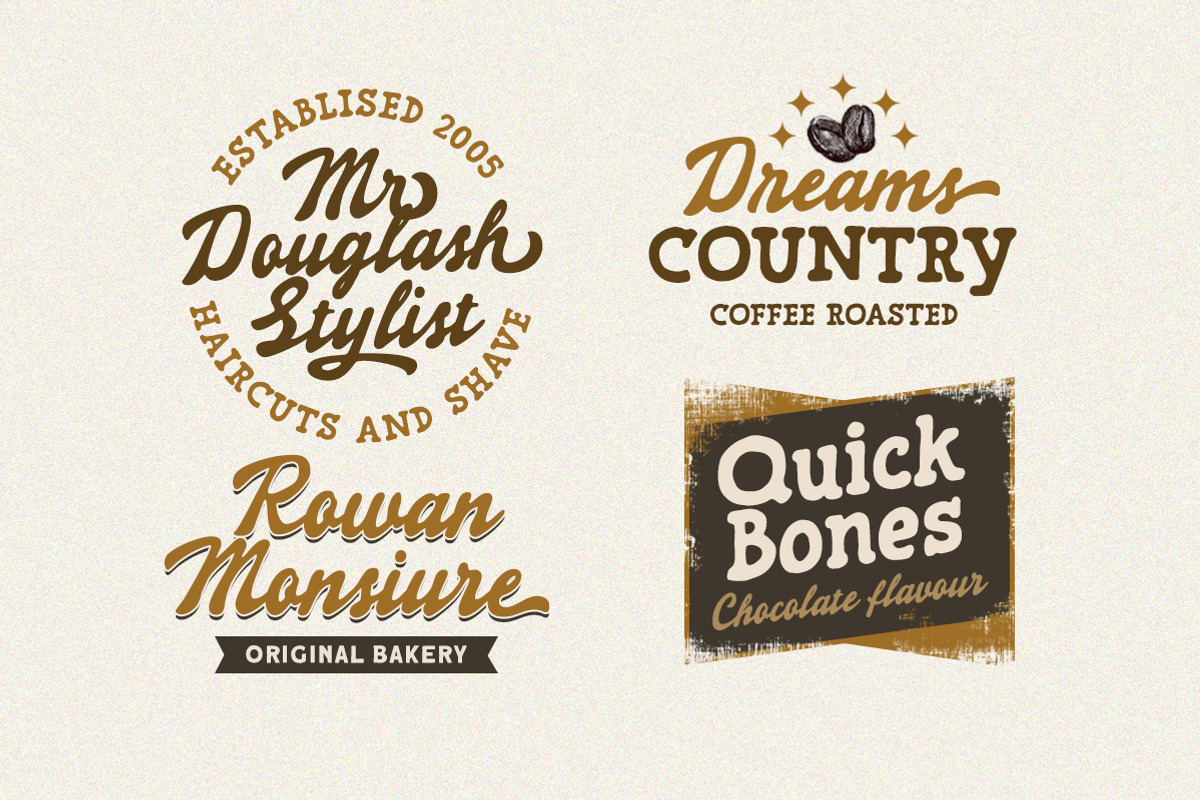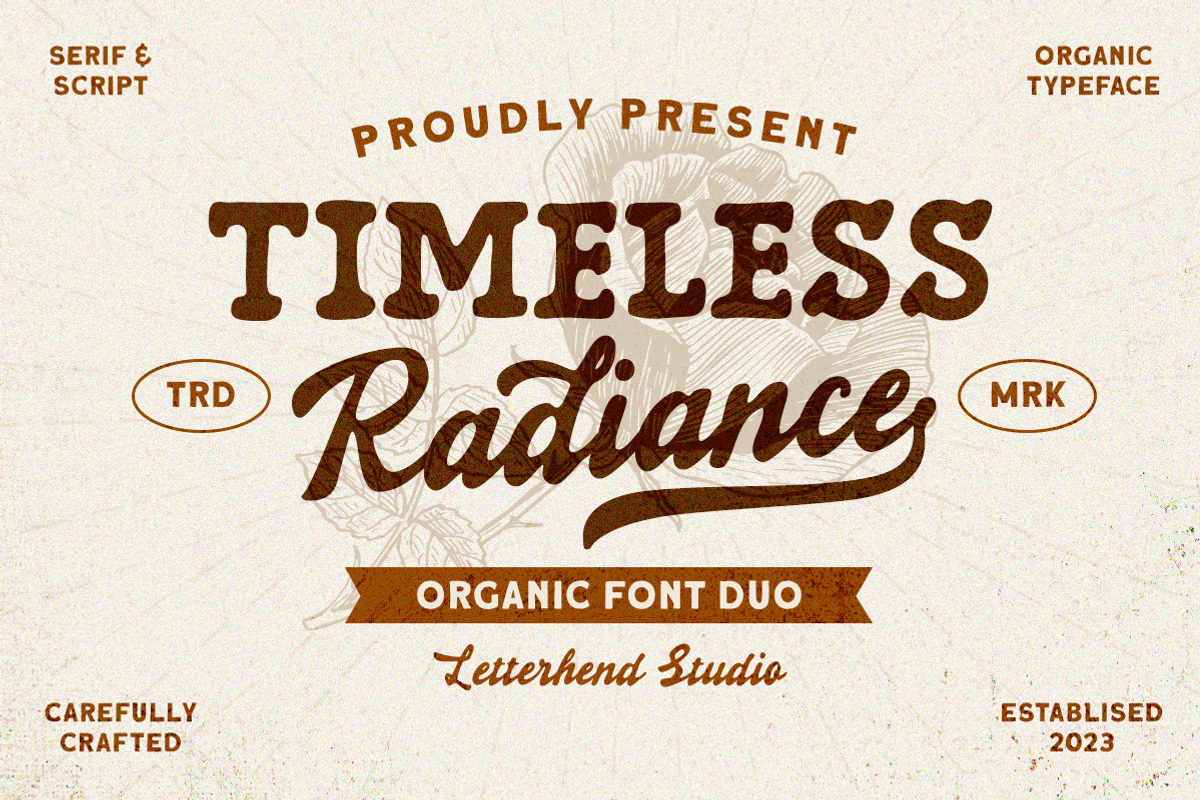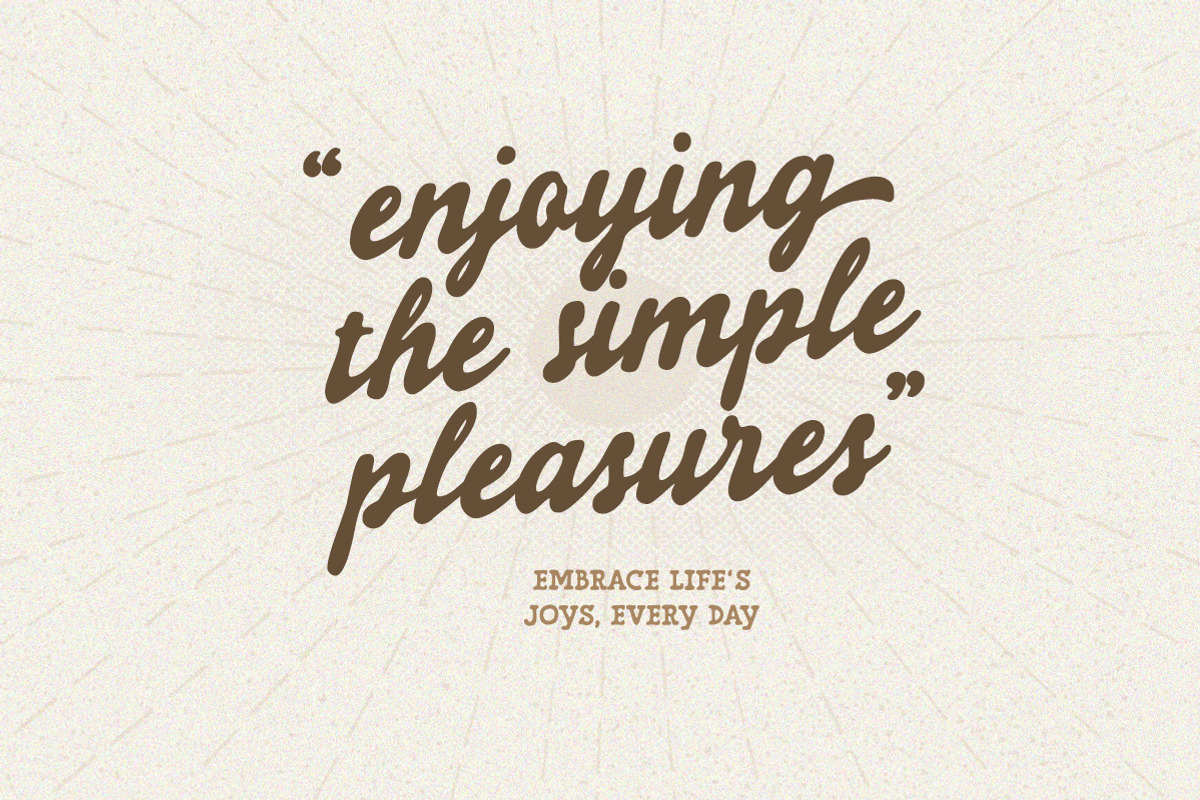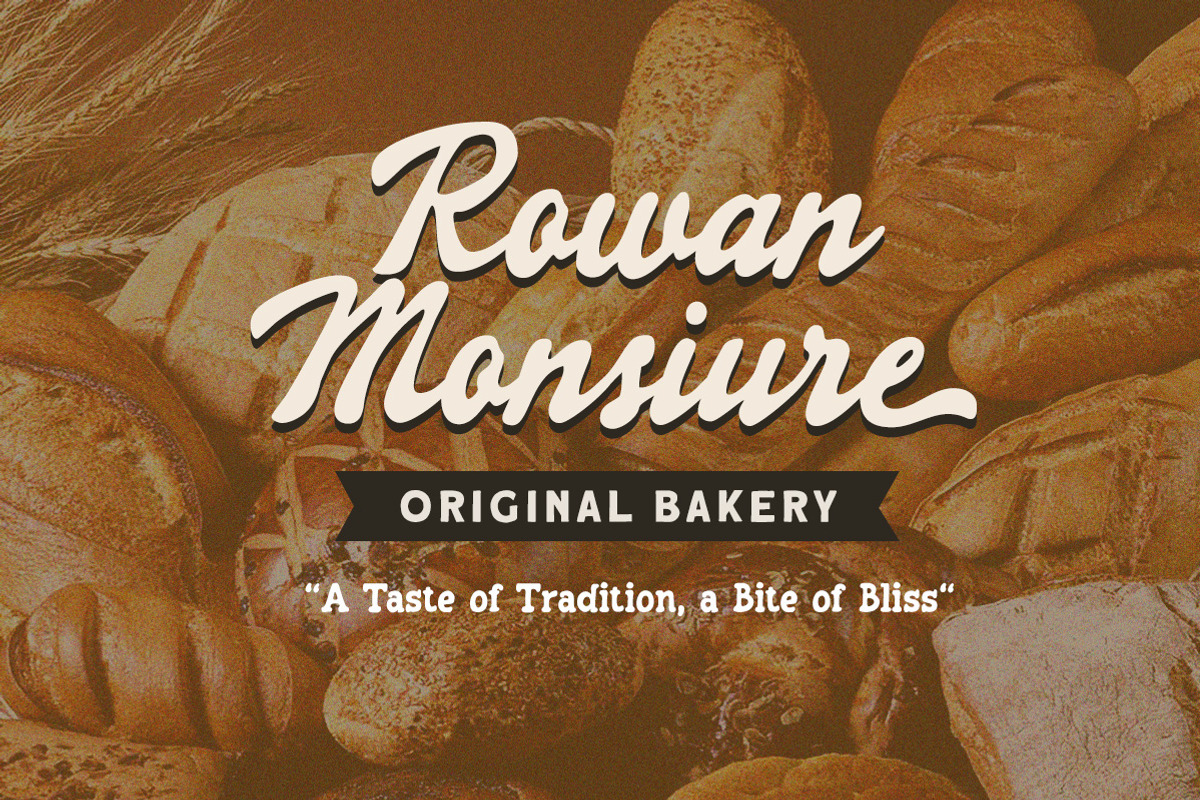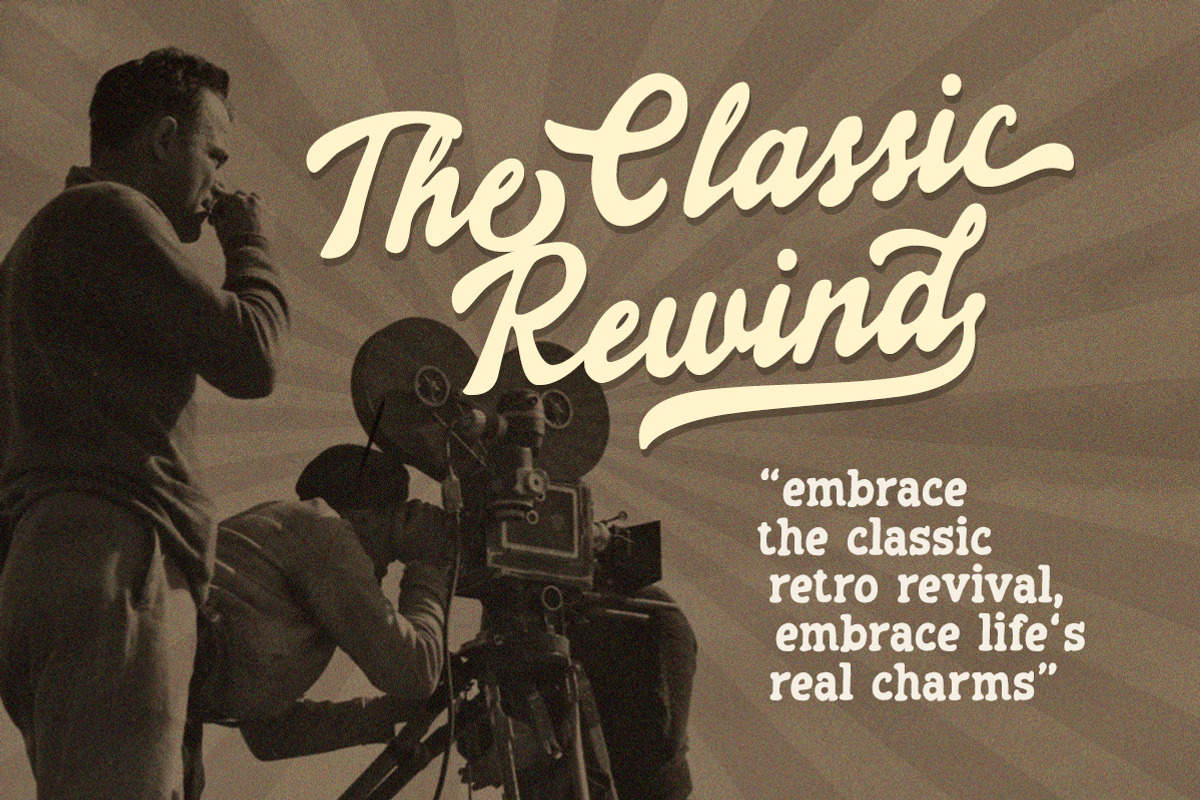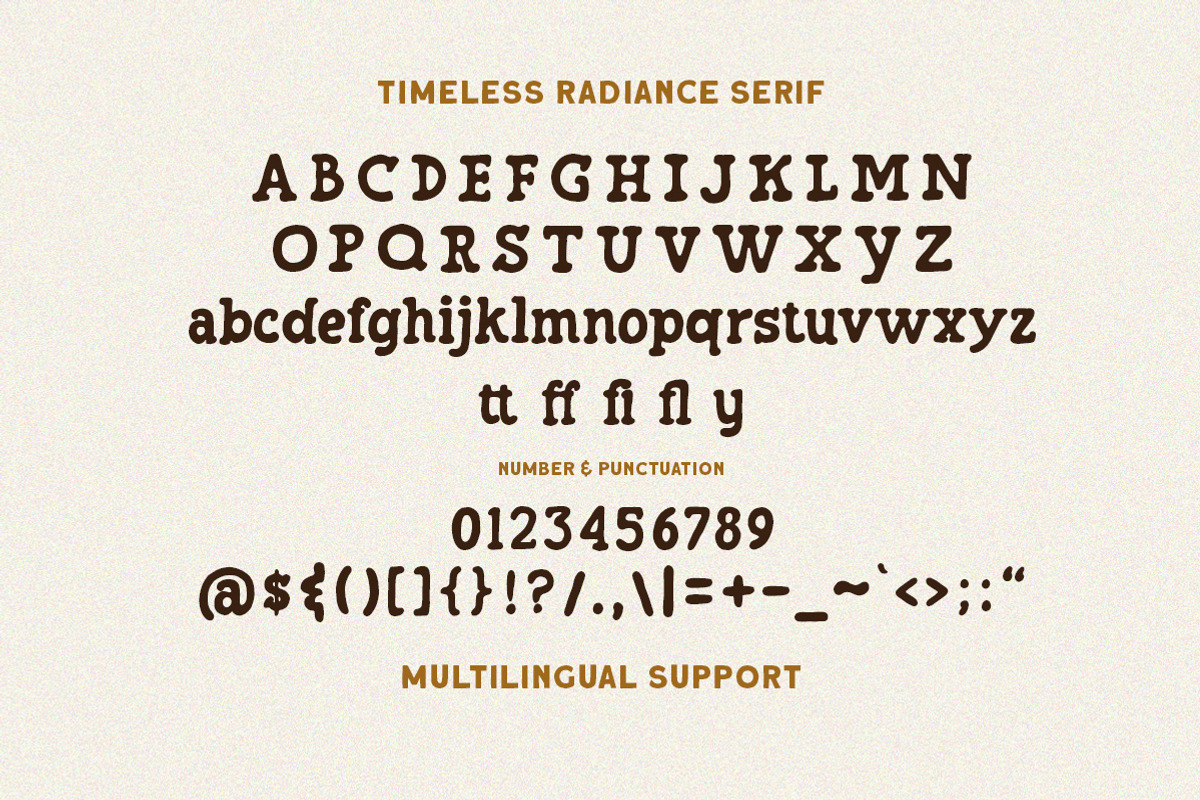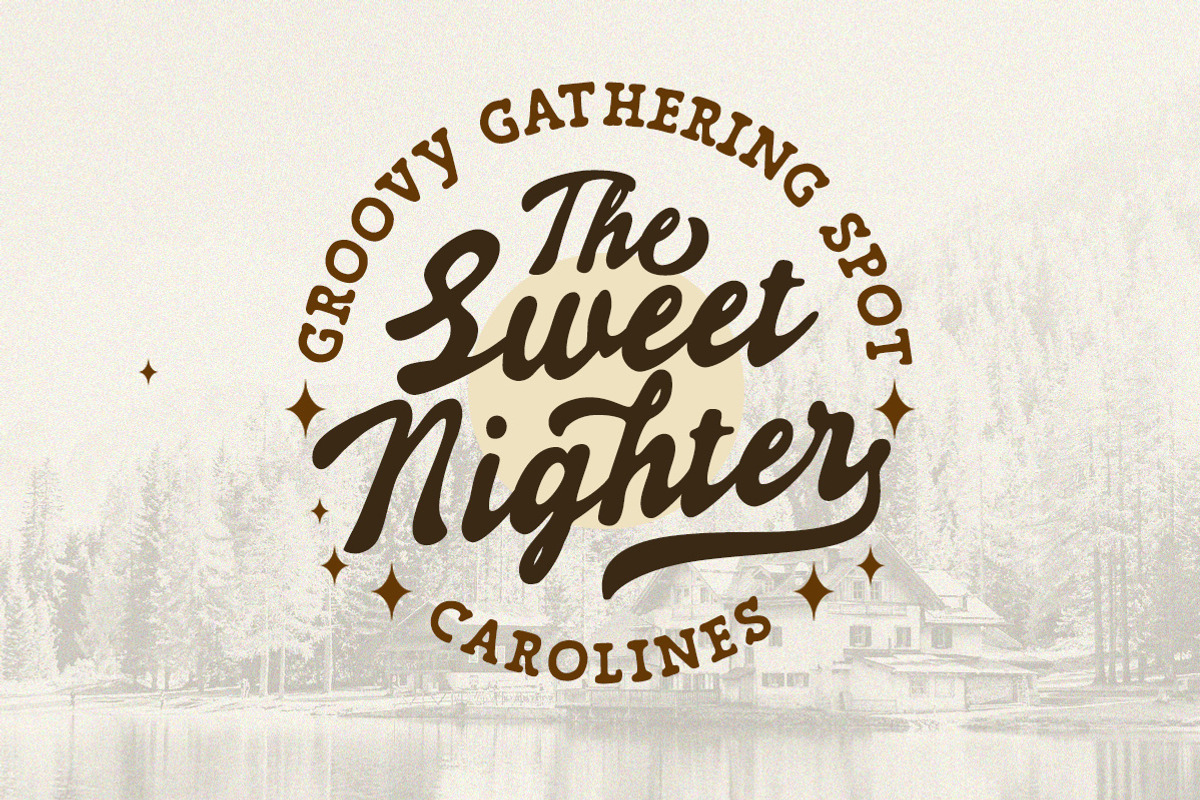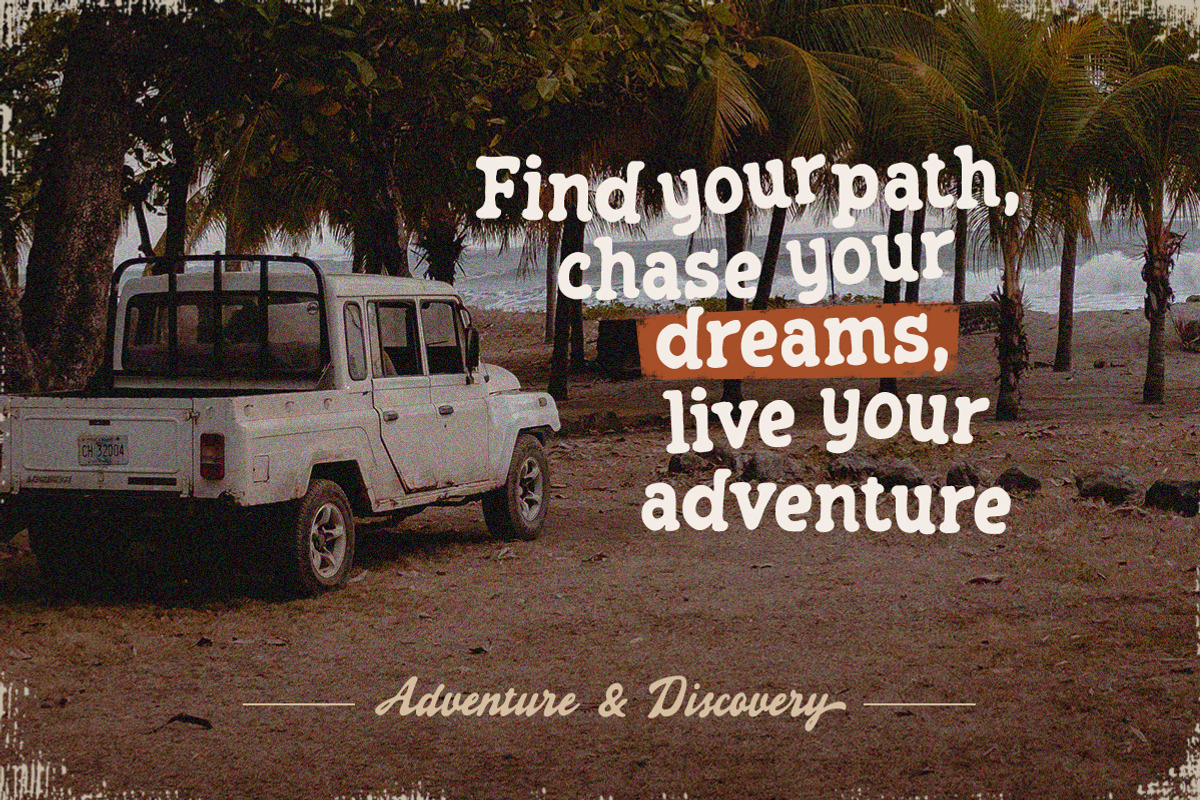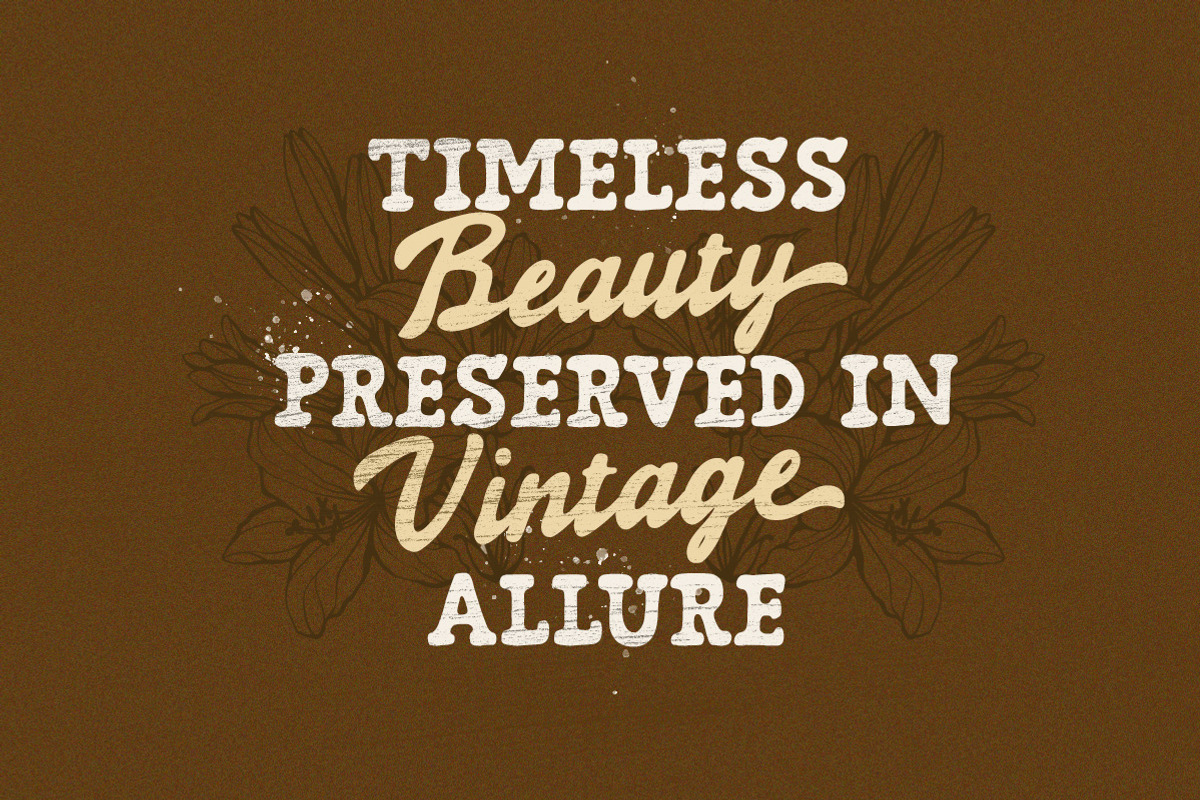
Timeless Radiance - Organic Font Duo
Timeless Radiance is an organic font duo consist of a bold script paired with a slab serif with a touch of classic look and feel. This type of font perfectly made to be applied especially in logo, headline, signage and the other various formal forms such as invitations, labels, logos, magazines, books, greeting / wedding cards, packaging, fashion, make up, stationery, novels, labels or any type of advertising purpose.